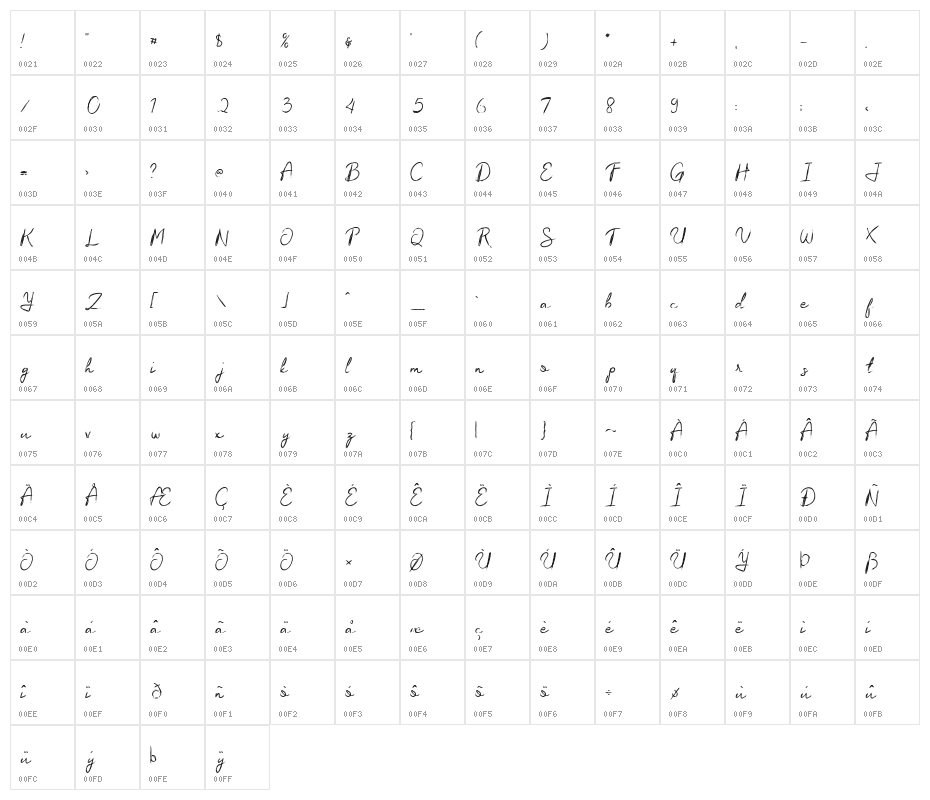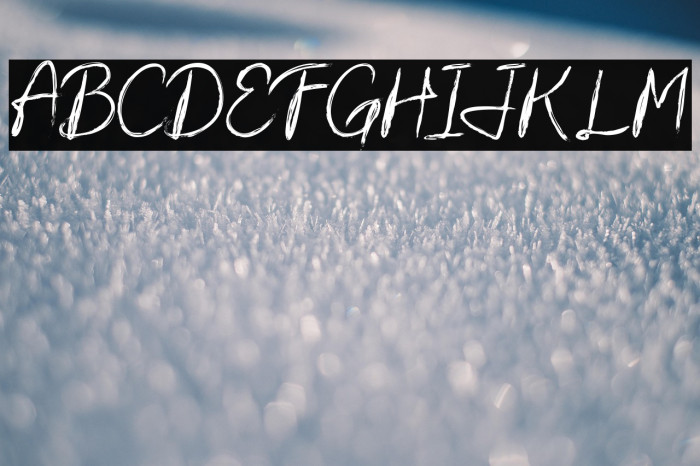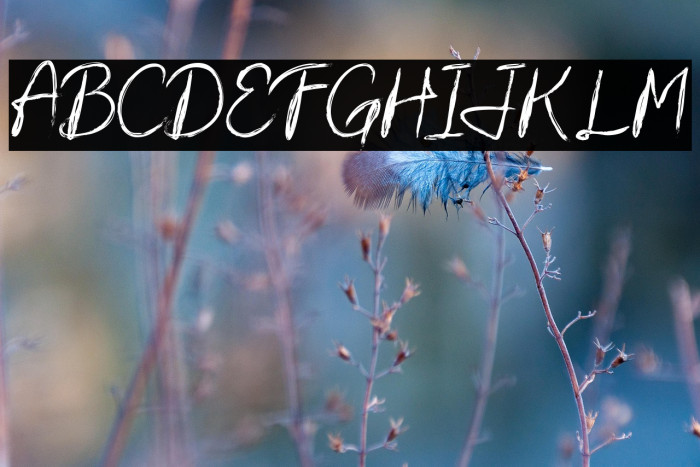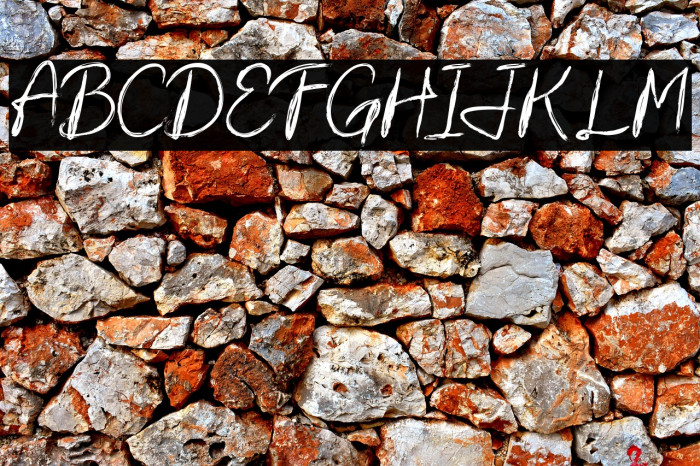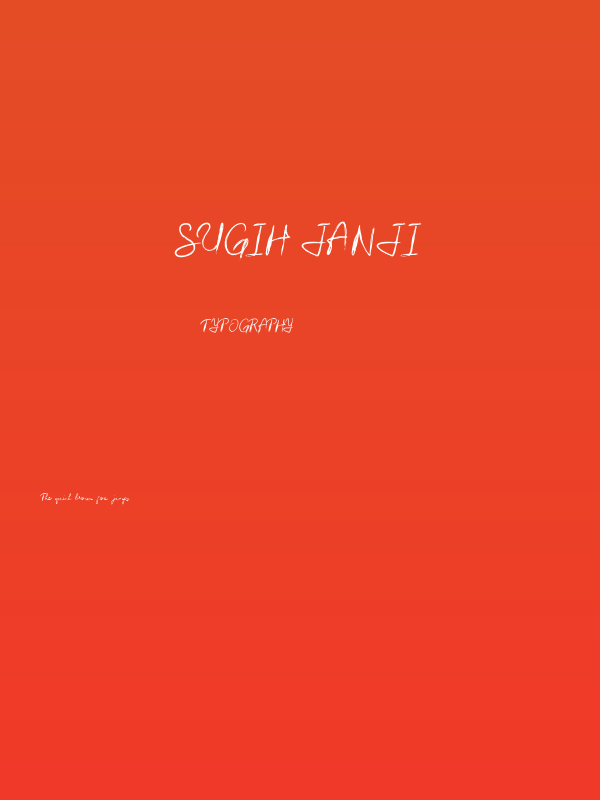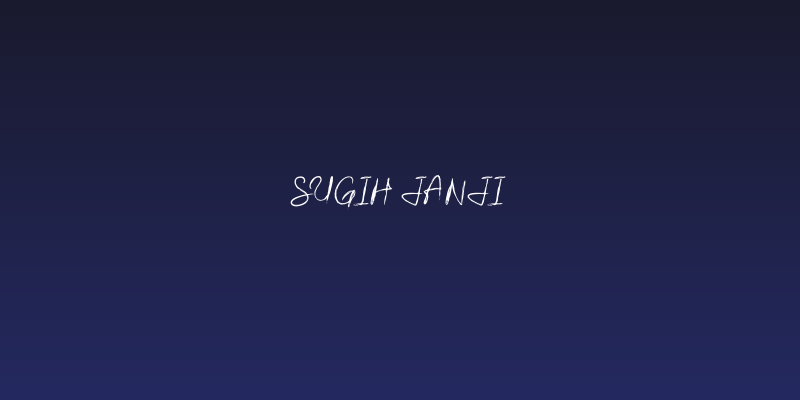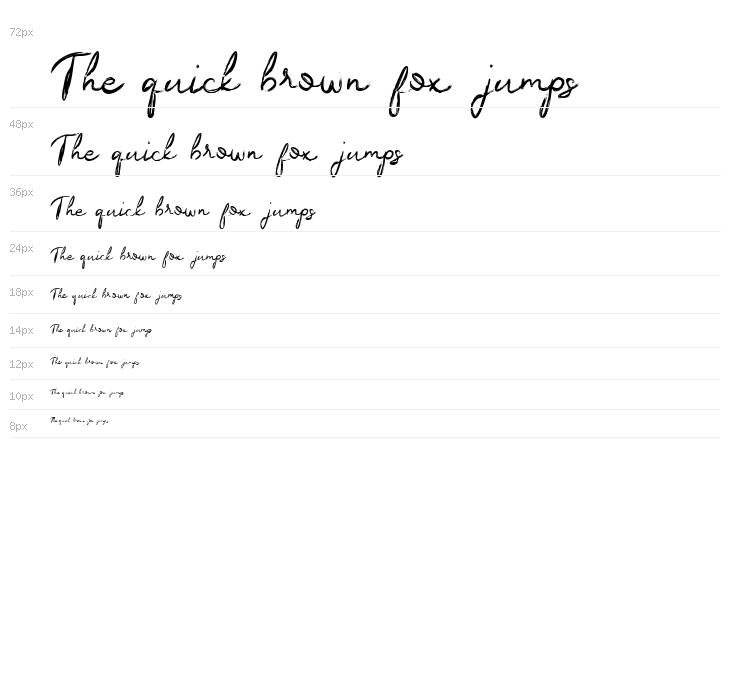
Sugih Janji Font
Sugih Janji Description
This font features a dynamic, handwritten style with a brush-like texture, giving it an artistic and expressive appearance. The uppercase letters are bold and slightly slanted, while the lowercase letters maintain a fluid and cursive form. The numbers and special characters complement the overall aesthetic with similar brush strokes. The font's organic and slightly rough edges add a sense of authenticity and creativity, making it suitable for designs that require a personal touch. Its unique character is emphasized by the varying thickness in strokes, providing a lively and engaging visual experience.
| Overall Style | Artistic |
| Proposed Projects | Ideal for creative projects such as greeting cards, invitations, posters, and artistic branding. |